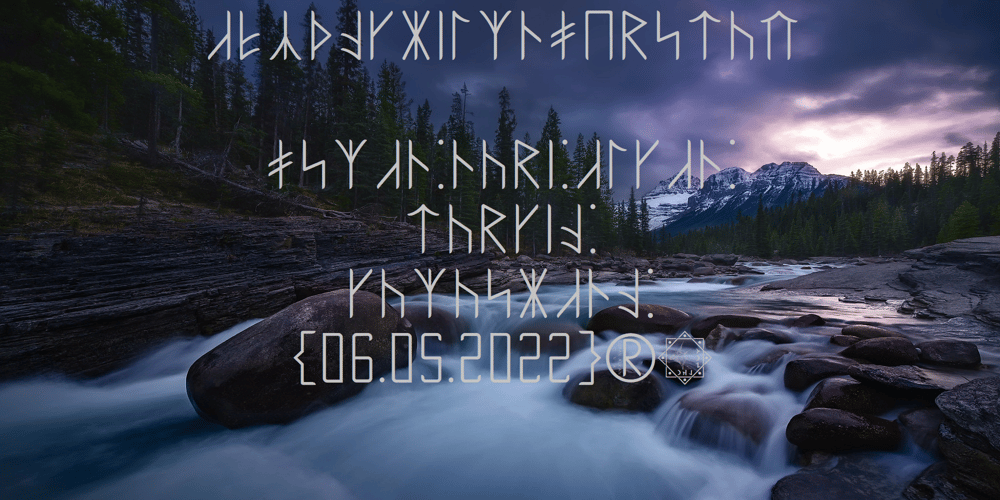
Ongunkan Slavic Runic Font Family was designed by Osman Nuri ALKAN and published by Runic World Tamgacı. Ongunkan Slavic Runic contains 1 styles and family package options. This font contains the Slavic version of the Runic script. Slavic runic script contains 18 characters. This font can be used with both latin keyboards and cyrillic based keyboards. In the development of this font, I used internet resources and could not find a written source. I wish you to use it in good work.